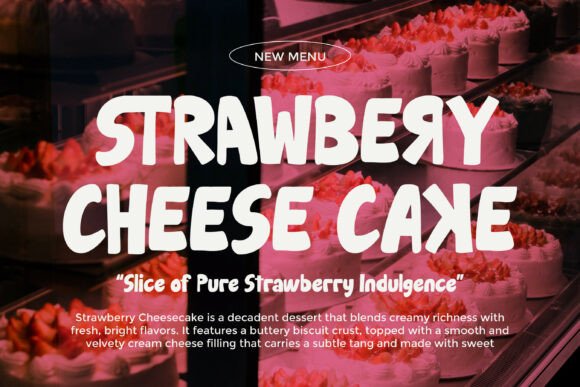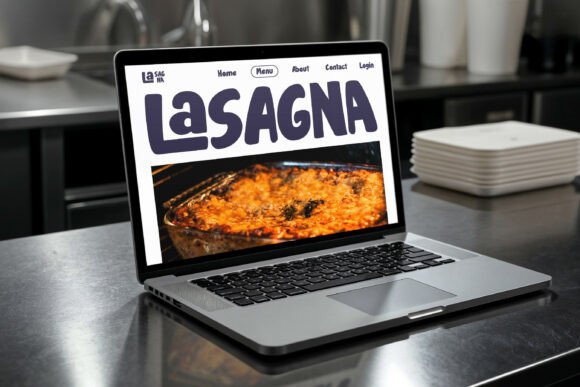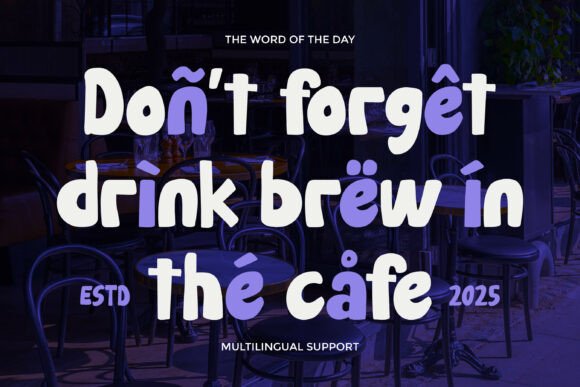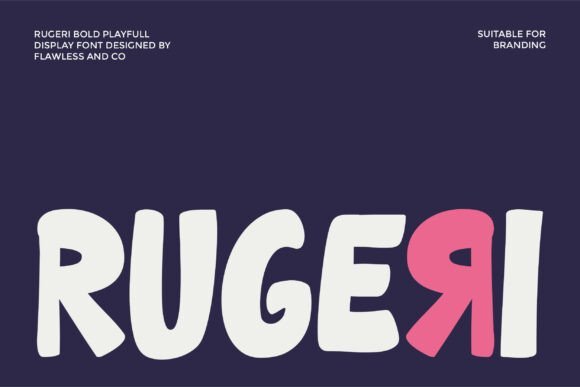
Introduction to Rugeri Font
Rugeri is a bold, playful display font designed to make a strong and cheerful visual statement.
With its chunky letterforms, rounded edges, and expressive shapes, Rugeri delivers a fun yet confident look that instantly captures attention This font is perfect for projects that require boldness with personality, combining a playful character with high readability in one powerful display font.